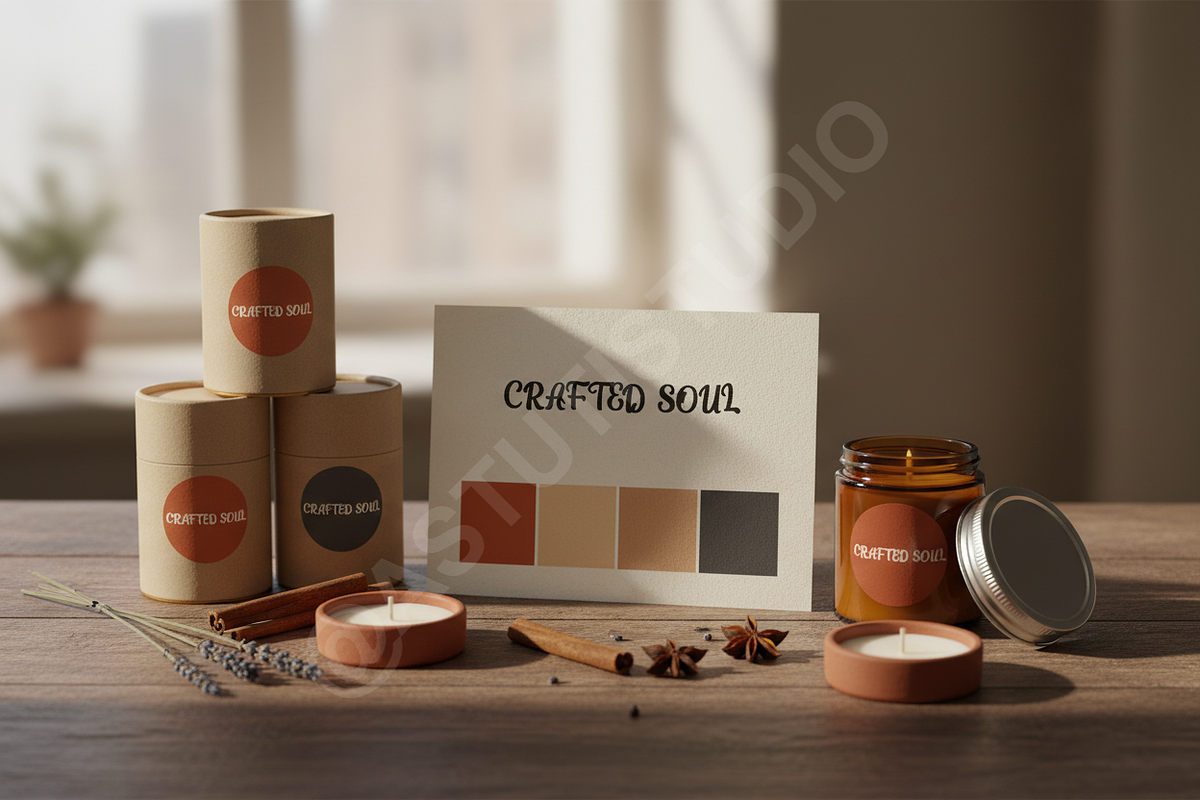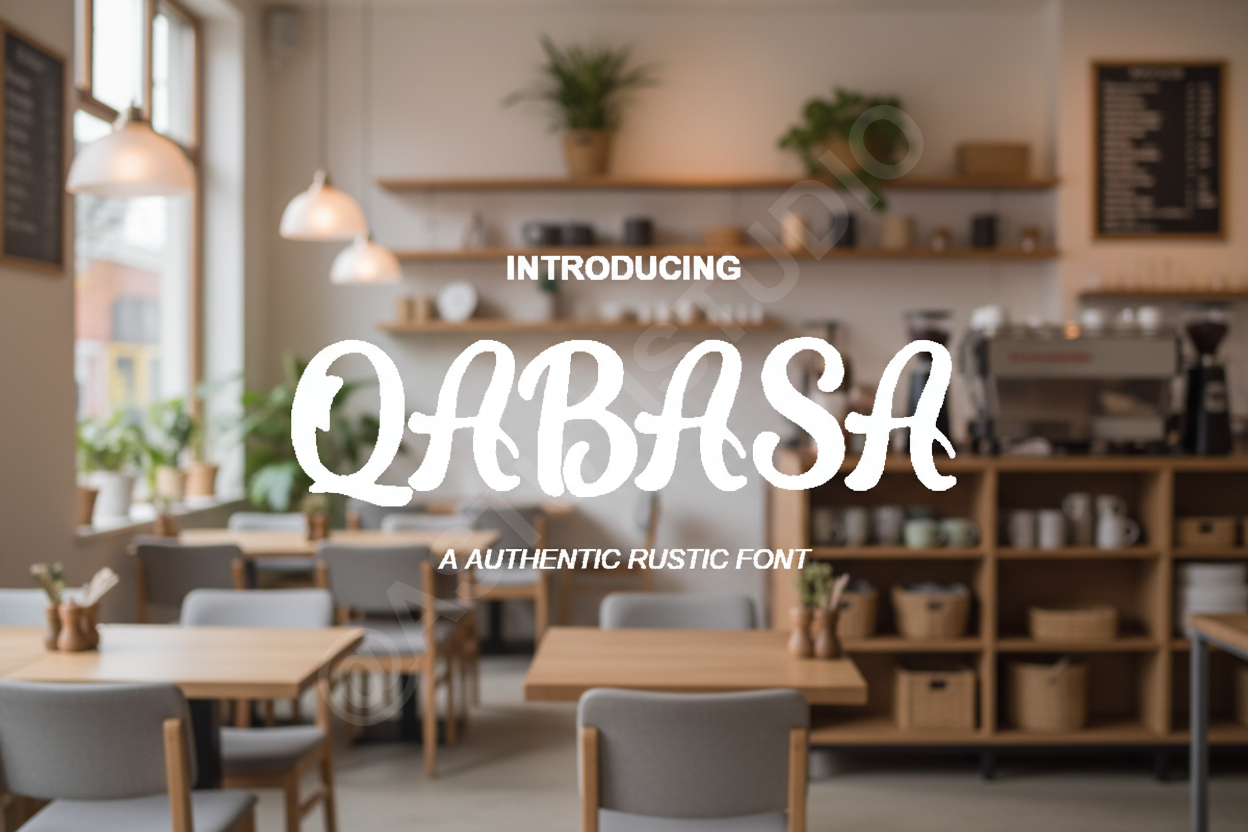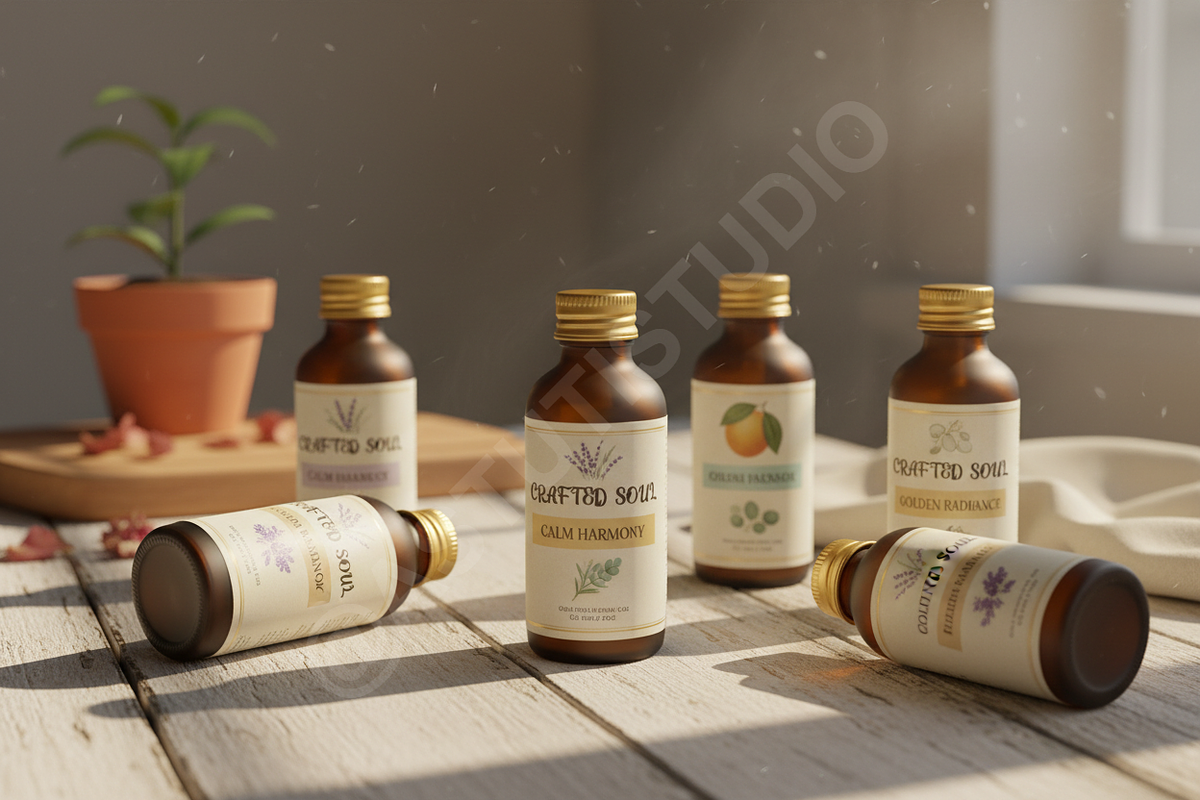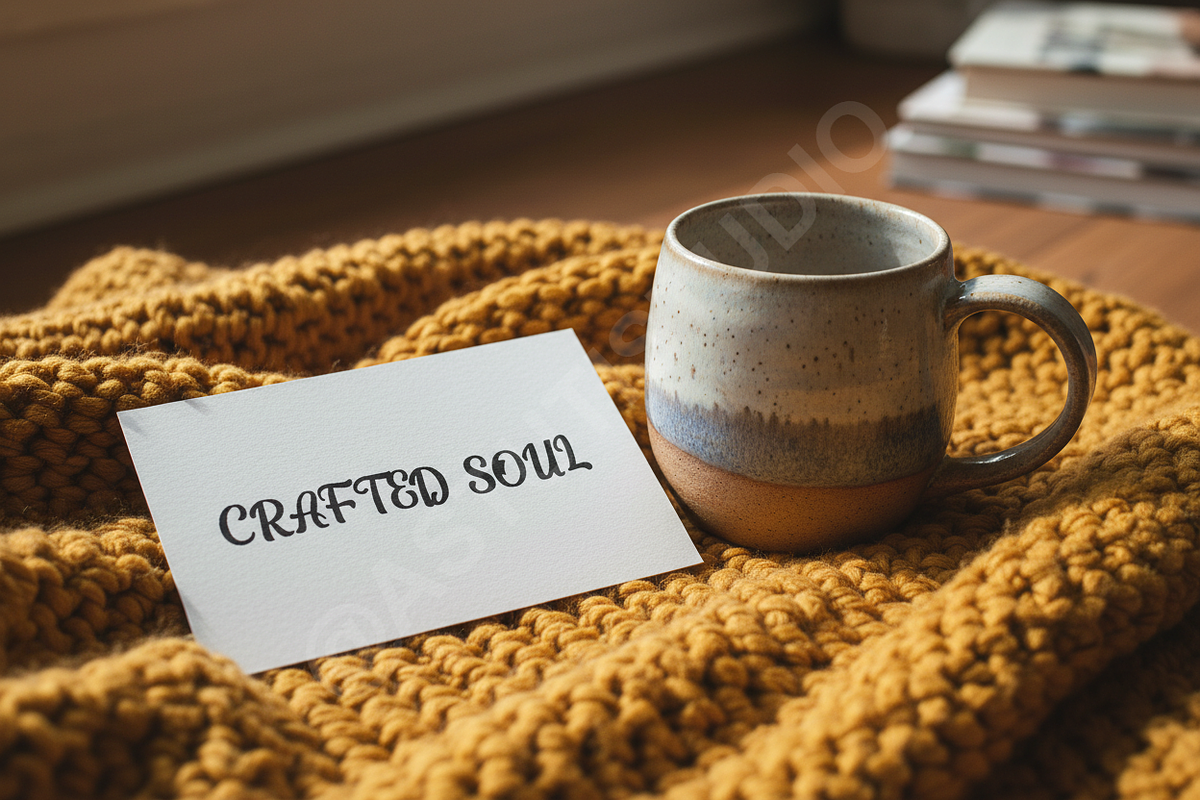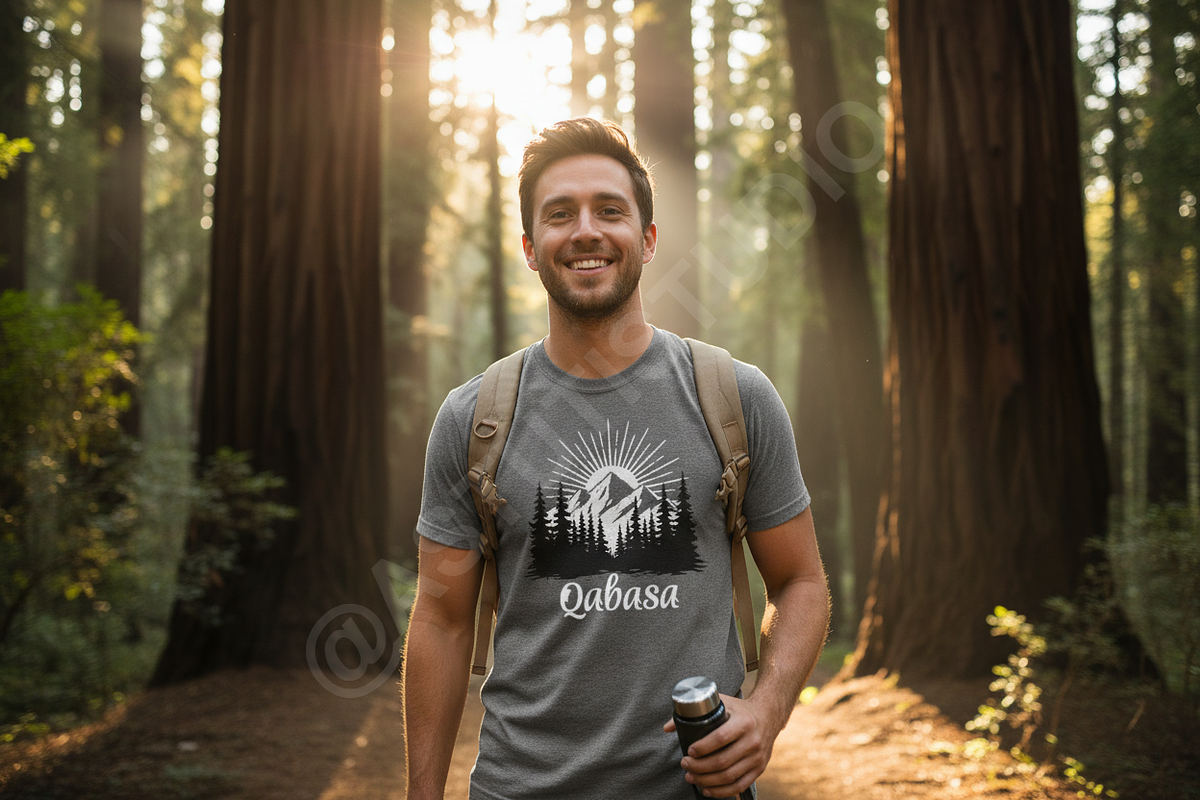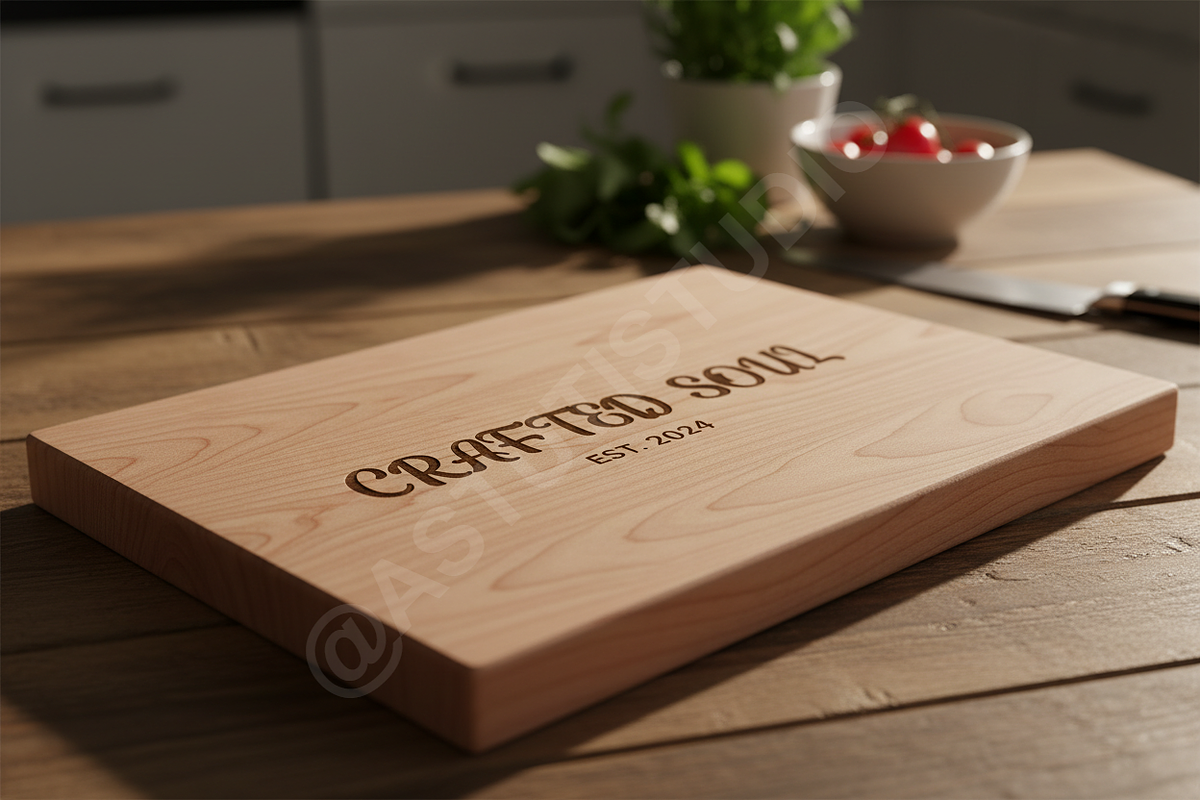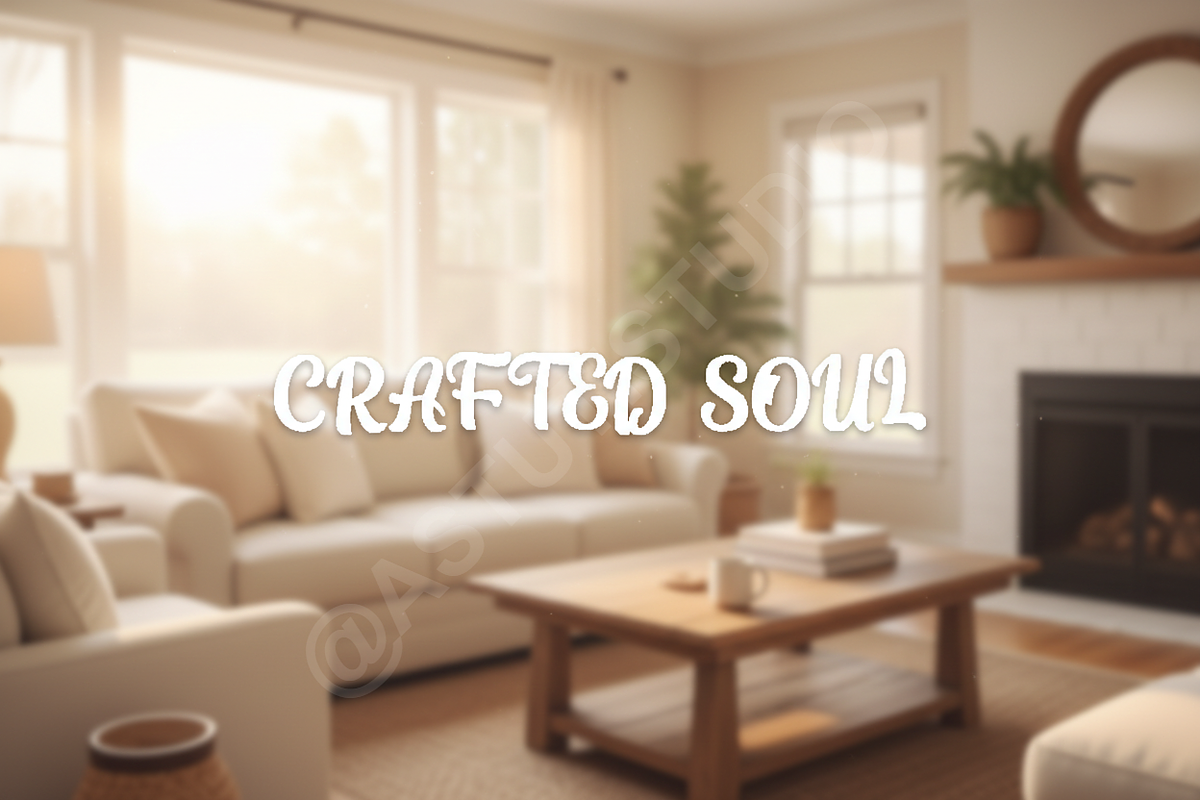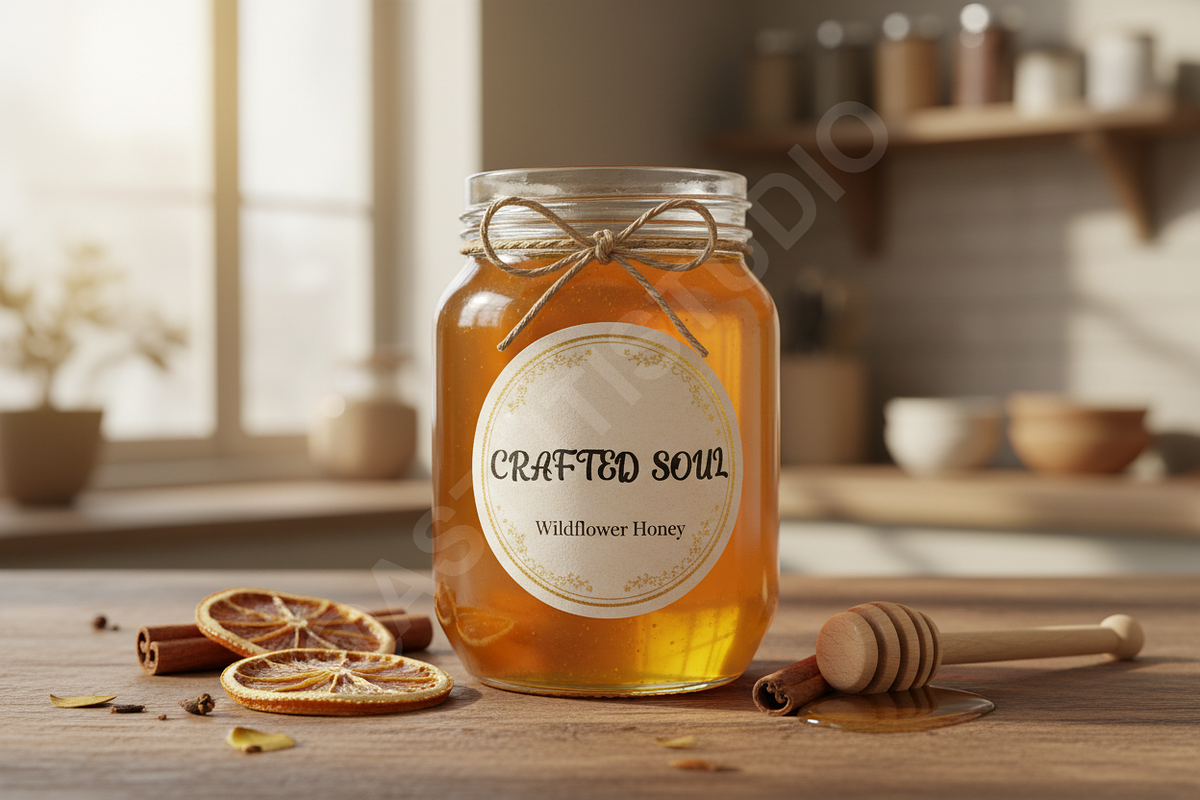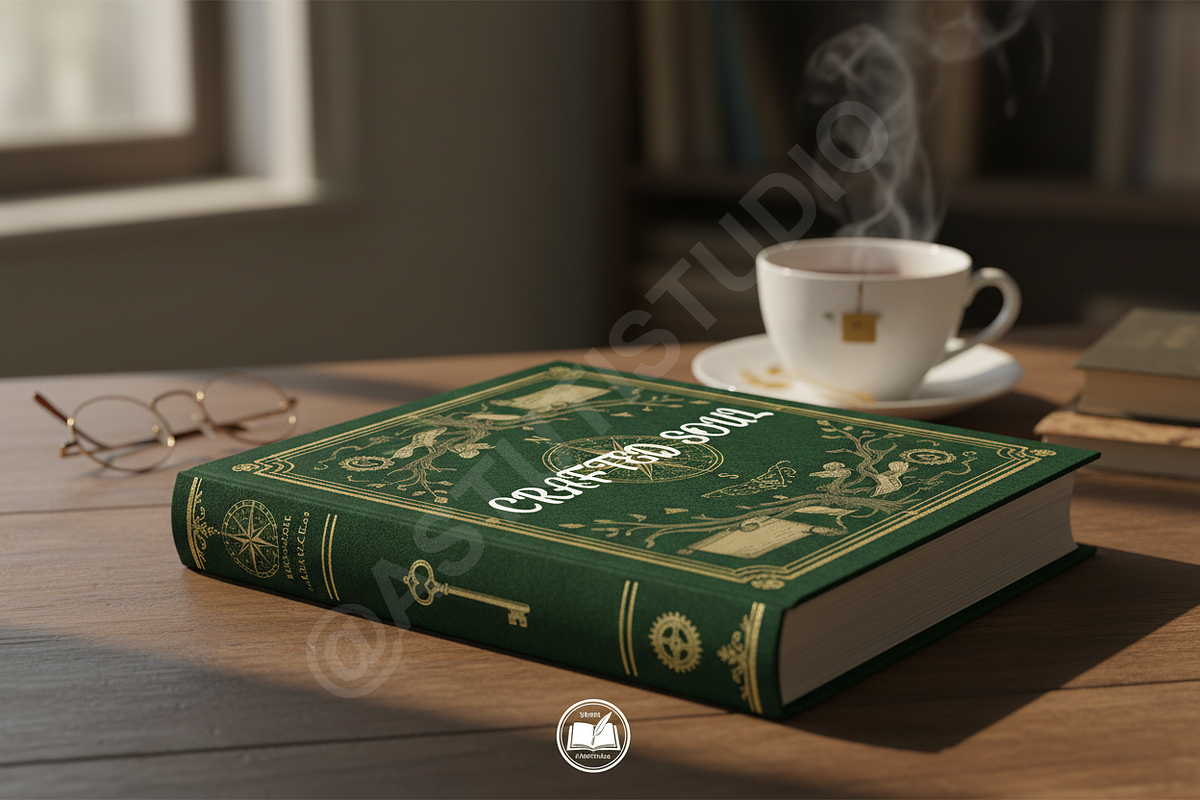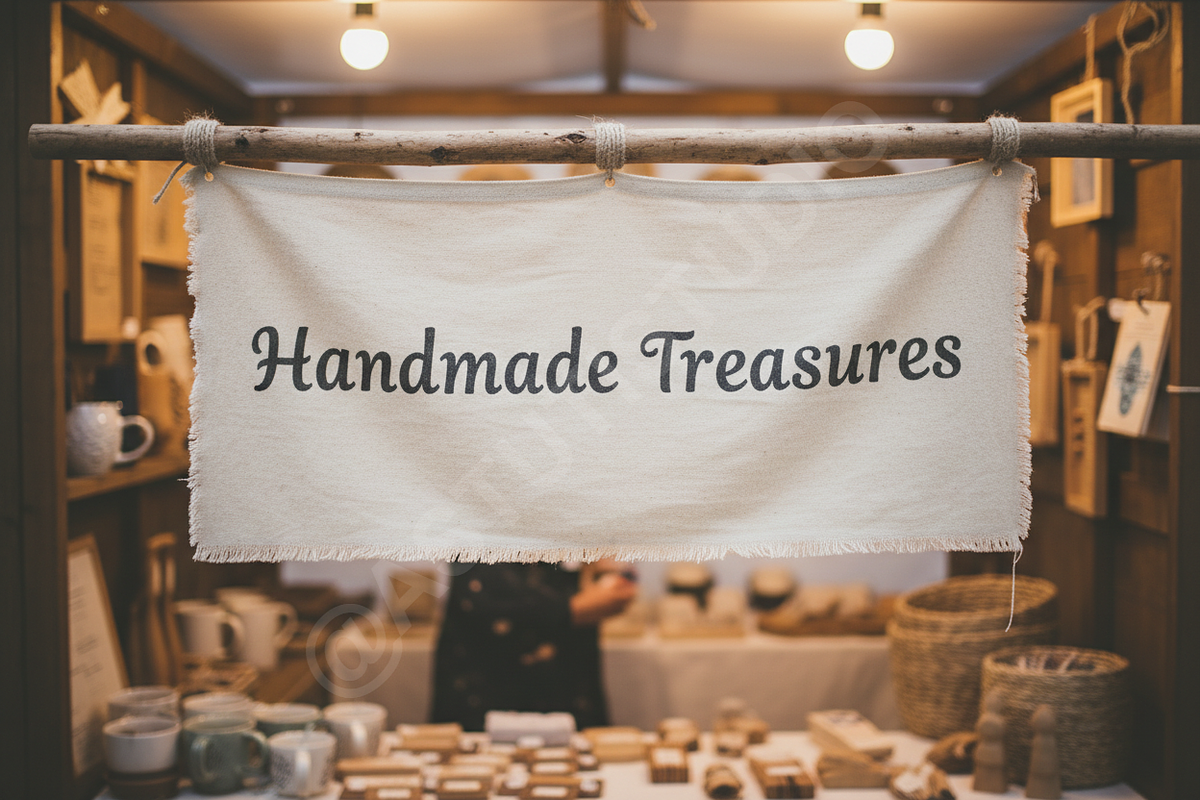
Qabasa Luxury Serif Typeface
Elevate your creative vision with Qabasa, a premium serif typeface meticulously crafted for high-end branding and sophisticated editorial layouts. Qabasa blends traditional elegance with modern versatility, making it the perfect choice for luxury fashion, jewelry branding, and minimalist social media aesthetics.
- Refined high-contrast letterforms for a timeless look
- Extensive ligature set for custom typographic compositions
- Complete character set including numbers and punctuation
- Full multilingual support for global accessibility
- Optimized for maximum legibility in print and digital displays